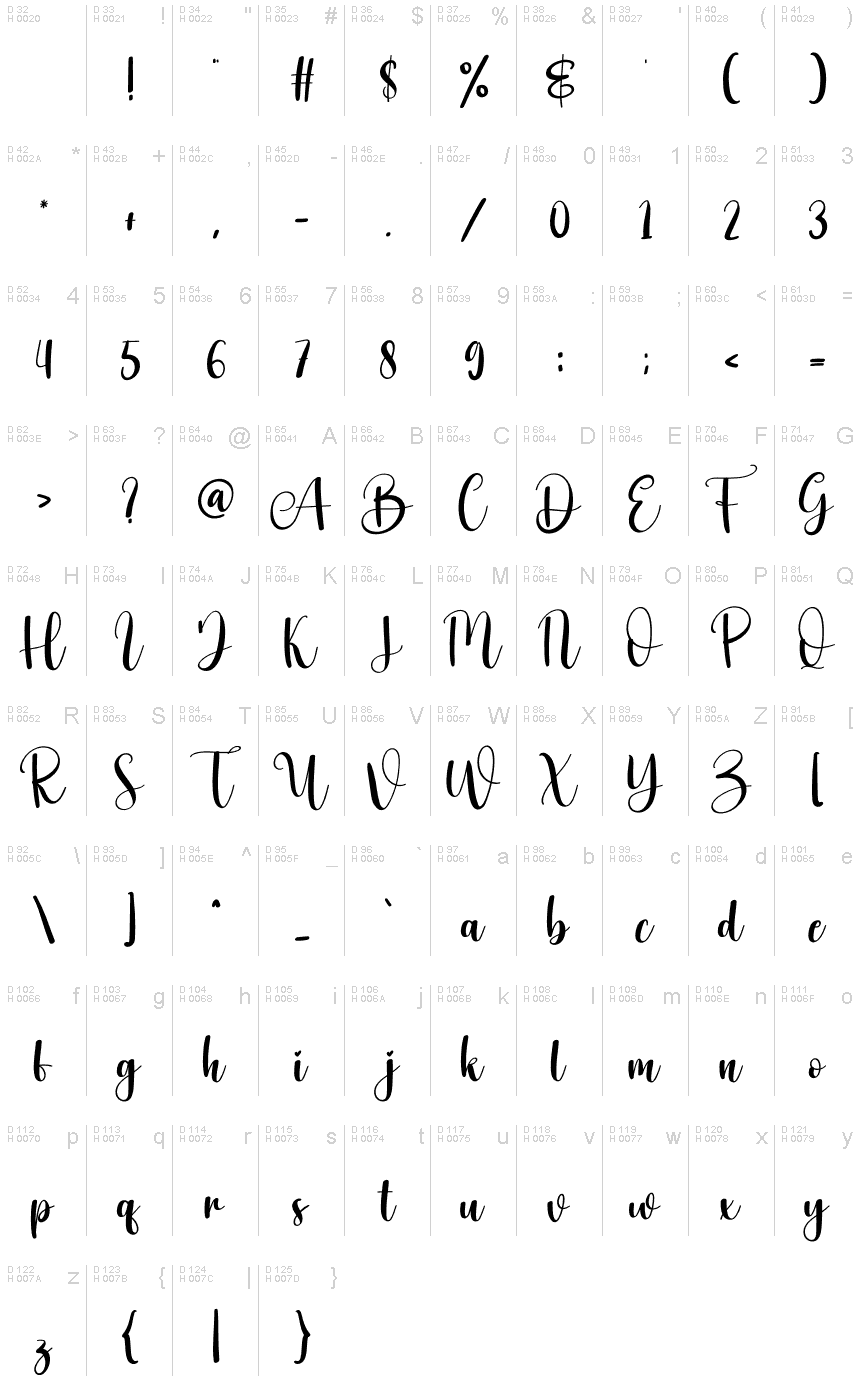
Lightening
Lightening, a handwritten font crafted by Scratchones, exudes a casual elegance that infuses personality into every curve and stroke. With its sweeping ascenders and playful descenders, this font captures the spontaneity of ink flowing across paper. The fluidity of Lightening's characters suggests a blend of modern flair and timeless grace, making it an ideal choice for projects that aim to convey intimacy with a stylish twist.
The aesthetic appeal of Lightening lies in its balance between legibility and artistry—each letter is distinct yet harmonious within the full tableau of text. This makes the font not only beautiful to look at but also practical for various applications. Whether gracing wedding invitations with its romantic vibe or adding an artisanal touch to branding materials, Lightening's versatility shines through.
In creative projects, Lightening can be the breath of fresh air that sets apart greeting cards, book covers, or any personalized merchandise. Its suitability stretches across digital and print media alike, inviting designers to explore its charm in contexts where a human touch is desired. Embrace the unique spirit of Lightening for your next project and let your words dance with an effortless elegance.
The aesthetic appeal of Lightening lies in its balance between legibility and artistry—each letter is distinct yet harmonious within the full tableau of text. This makes the font not only beautiful to look at but also practical for various applications. Whether gracing wedding invitations with its romantic vibe or adding an artisanal touch to branding materials, Lightening's versatility shines through.
In creative projects, Lightening can be the breath of fresh air that sets apart greeting cards, book covers, or any personalized merchandise. Its suitability stretches across digital and print media alike, inviting designers to explore its charm in contexts where a human touch is desired. Embrace the unique spirit of Lightening for your next project and let your words dance with an effortless elegance.